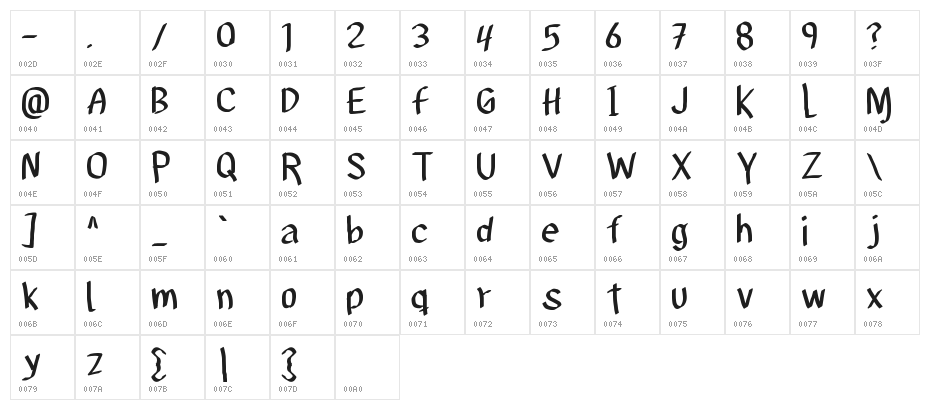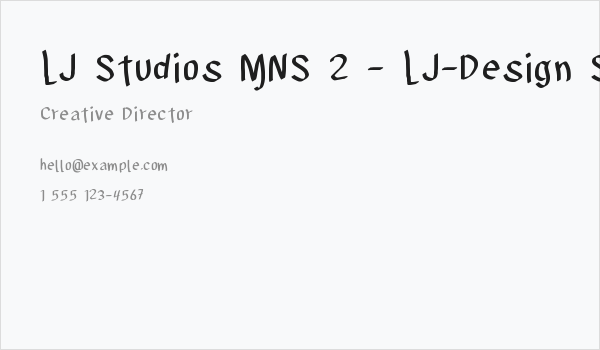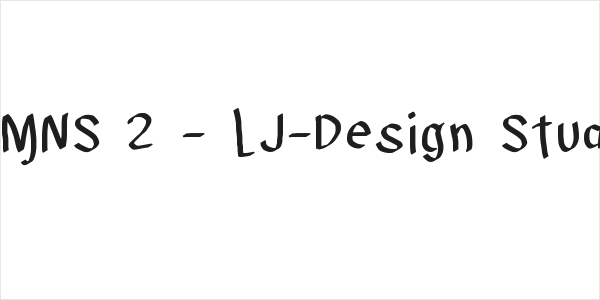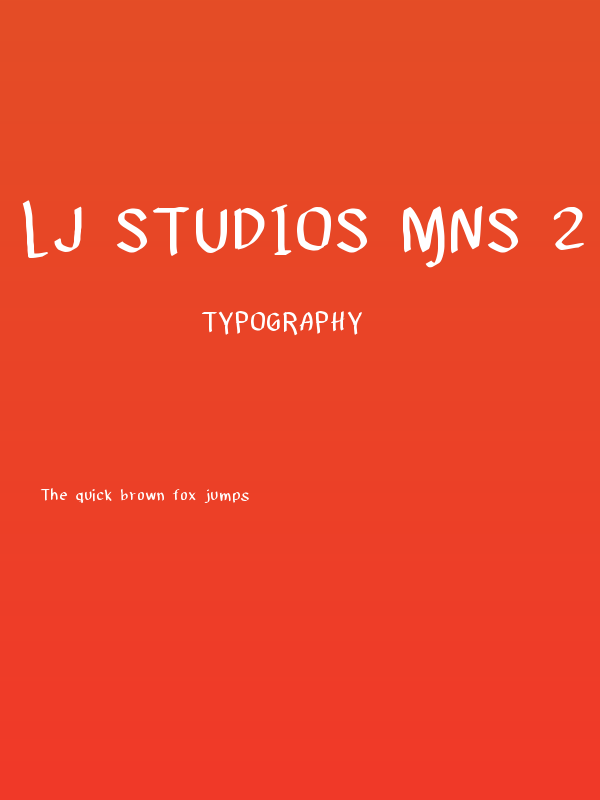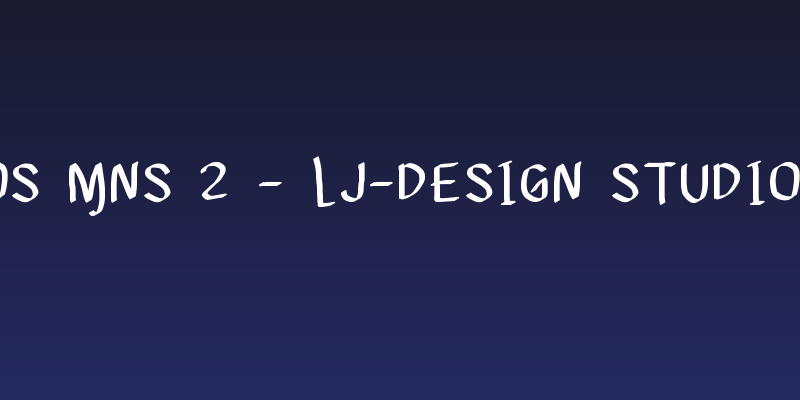
LJ Studios MNS 2 - LJ-Design Studios Medium Font
LJ Studios MNS 2 - LJ-Design Studios Medium Description
This font exhibits a playful and handwritten style, characterized by its irregular strokes and dynamic flow. The letters have a casual, organic feel, with varying thickness that adds a sense of movement and energy. The uppercase letters are bold and slightly slanted, while the lowercase letters maintain a consistent style with a touch of whimsy. The numerals are rounded and maintain the same playful aesthetic, making them easily distinguishable. Special characters follow the same design principles, ensuring a cohesive look across all glyphs. This font is ideal for projects that require a personal touch or a creative flair.